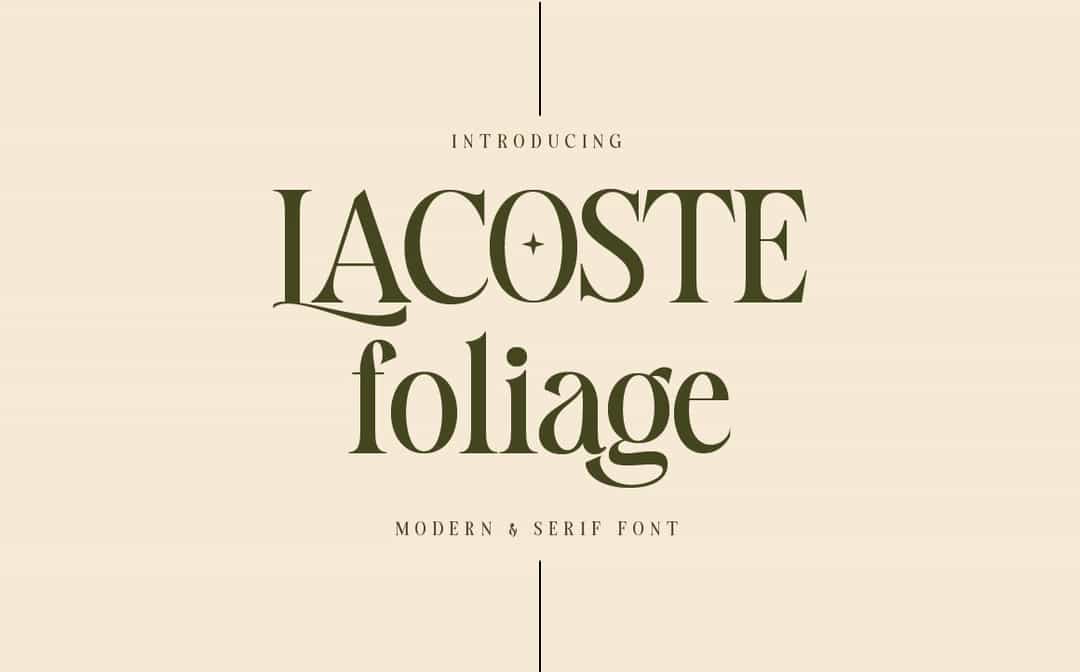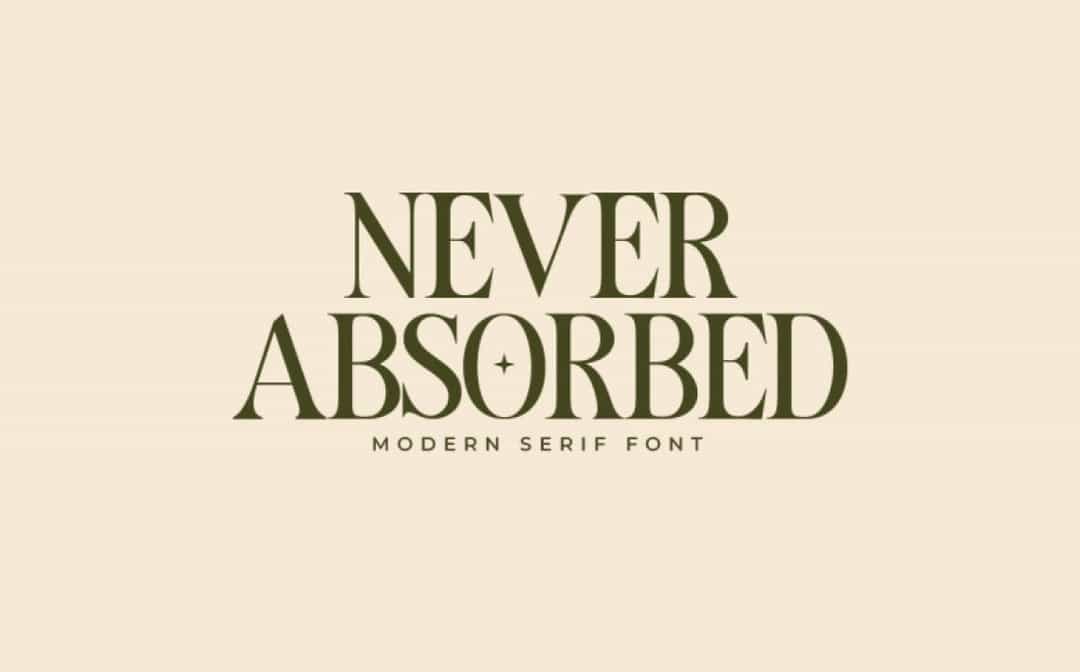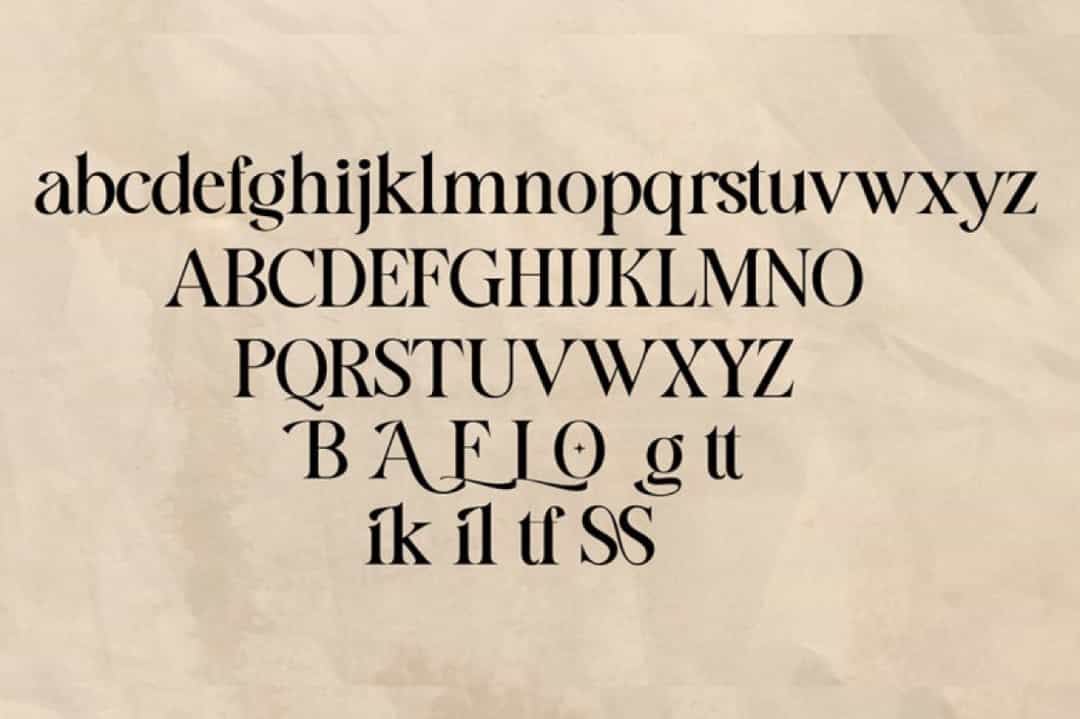
LACOSTE Foliage is an eye-catching serif typeface with its own distinctive font. This customizable font works wonderfully on various design concepts such as designs, inding styles and lightweight/high contrast fonts, making them suitable for feminine logos, fashion editorial design head branding or branding purposes.